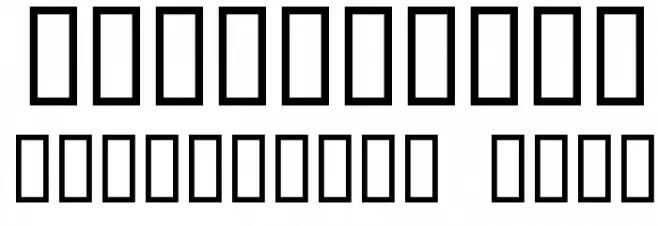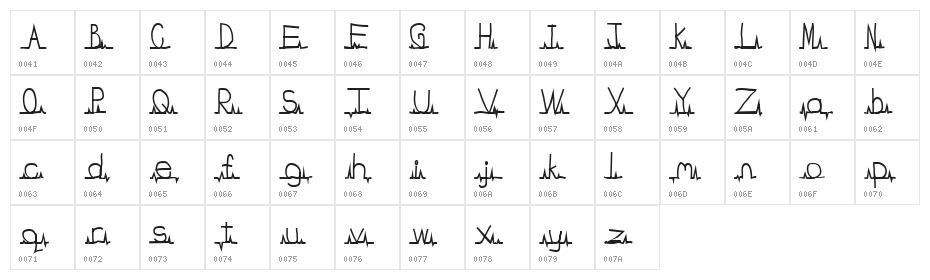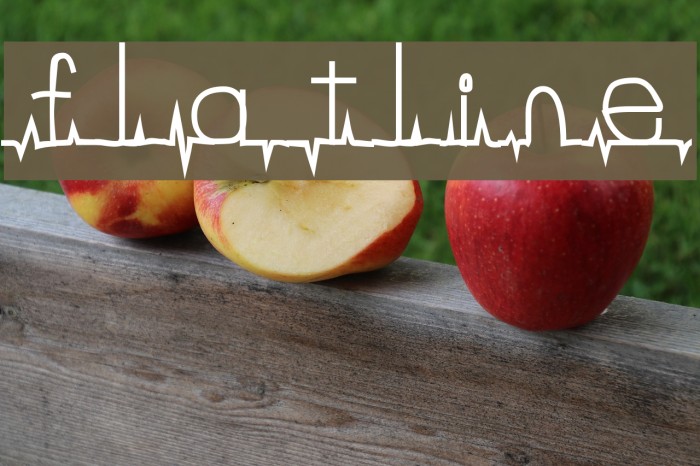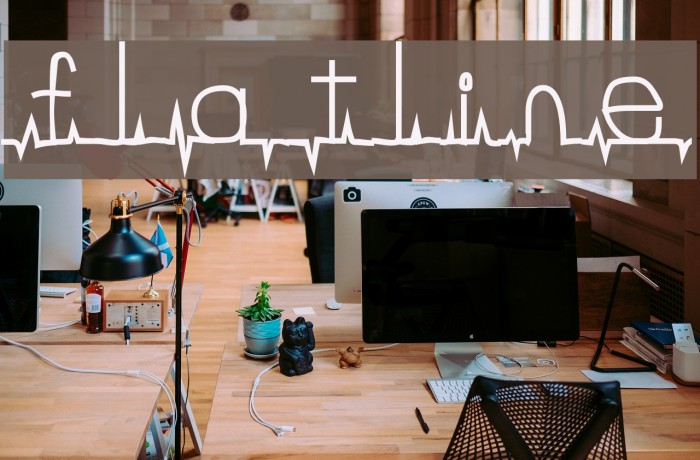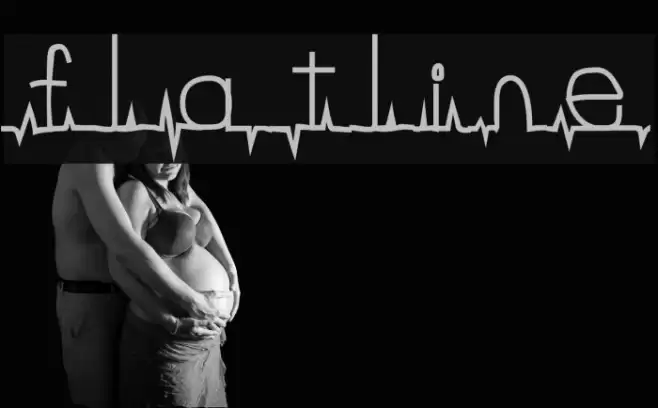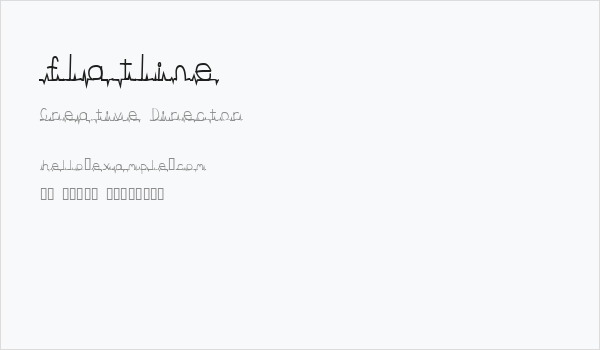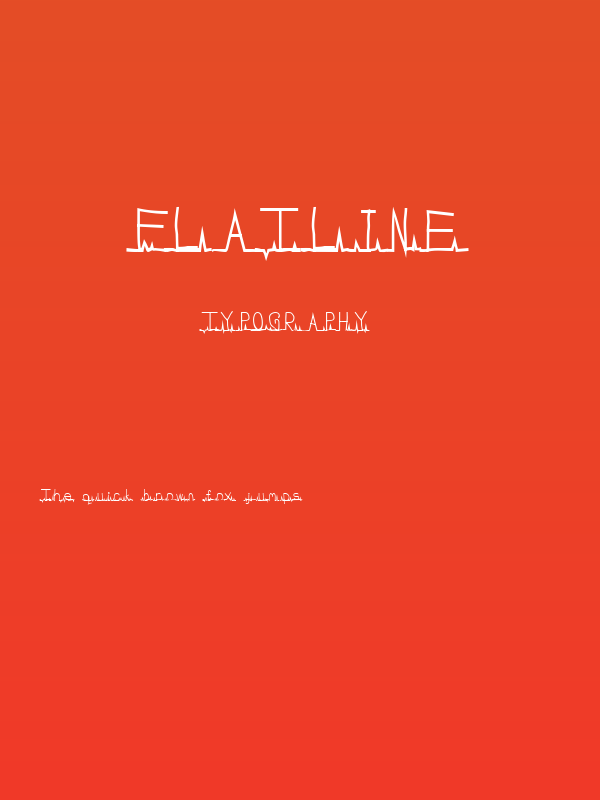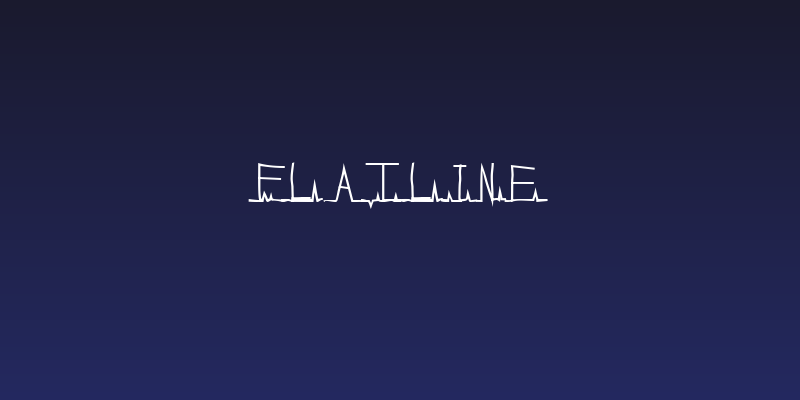
flatline Font
flatline Description
This font features a unique design that mimics the appearance of an electrocardiogram line, giving it a dynamic and energetic feel. Each letter is crafted with a jagged, heartbeat-like line running through it, creating a sense of movement and rhythm. The uppercase and lowercase letters maintain this consistent style, while the numbers are represented as bold, rectangular shapes, providing a stark contrast to the letters. The special characters are also designed with the same bold, rectangular style, adding to the font's distinctiveness. This font is particularly eye-catching and would be suitable for projects that require a modern and unconventional look.
| Proposed Projects | Ideal for medical-themed designs, music album covers, event posters, or any project needing a modern, edgy aesthetic. |